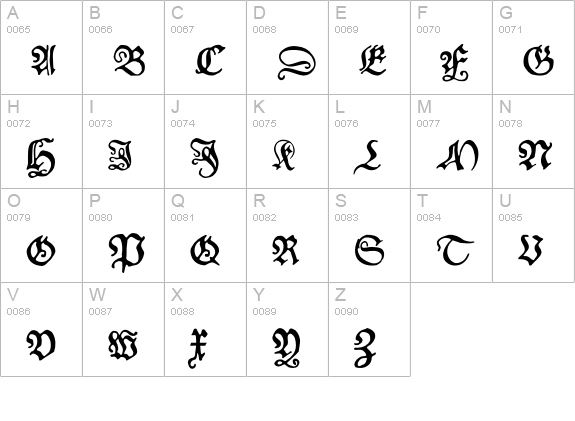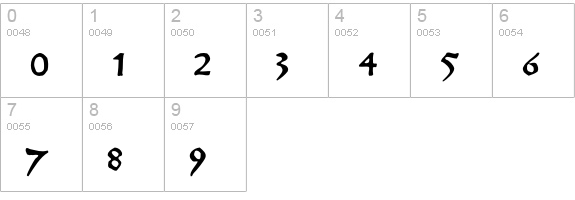
Schoensperger Font Details
Schoensperger font is a stunning display typeface that exudes elegance and sophistication. With its refined letterforms and subtle curves, this font is perfect for adding a touch of class to any design project. The Schoensperger font family includes a variety of weights and styles, making it versatile for a range of applications. Whether you're designing a logo, creating a headline, or crafting a beautiful invitation, this font will captivate your audience and leave a lasting impression. One of the best aspects of Schoensperger font is that it is free to download at FontsMarket.com. This means that you can access this incredible font without any cost, making it an excellent choice for designers on a budget or those just starting out. With its high-quality design and accessibility, Schoensperger font is a valuable asset for any creative endeavor. The attention to detail in Schoensperger font is truly remarkable. Each letter has been meticulously crafted to ensure a seamless flow and harmonious composition. The clean lines and balanced proportions create a sense of harmony and sophistication, making this font a timeless choice for any project. Whether you're looking to add a touch of elegance to your branding materials, enhance the typography in your editorial designs, or create stunning invitations, Schoensperger font is the perfect solution. Its versatility and beauty make it a go-to choice for designers who value quality and style. In conclusion, Schoensperger font is a must-have for any designer looking to elevate their work. With its exquisite design, wide range of options, and the fact that it is freely available to download at FontsMarket.com, this font is a true gem. Enhance your designs and captivate your audience with the timeless beauty of Schoensperger font.